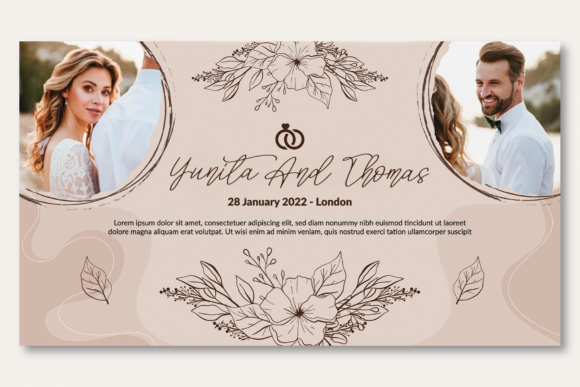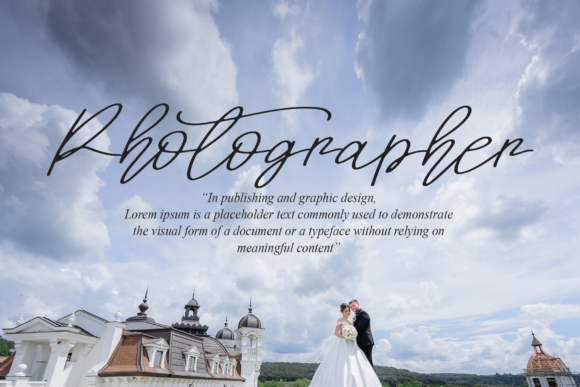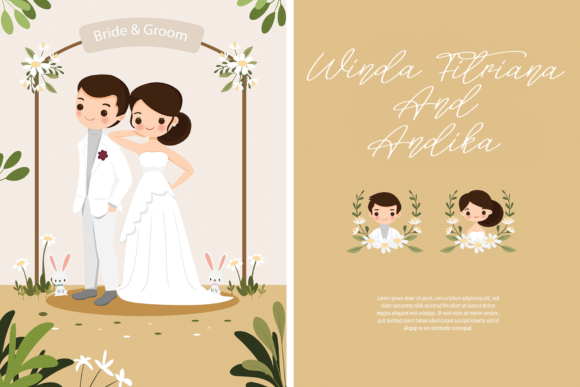
Introduction to Signature Holiday Font
Signature Holiday feels equally charming and elegant.
Why Choose Signature Holiday Font?
Signature Holiday Font offers exceptional quality and versatility, making it a valuable addition to your design toolkit. Whether you’re creating for personal projects or commercial use, Signature Holiday Font delivers professional results.